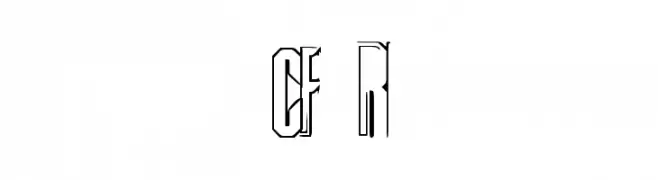
( House of Vegas )
A bold, abstract font with geometric shapes and a futuristic aesthetic.
( Just In Type - www.justintype.com.br/home_content.html )
A bold, comic-inspired font with rounded strokes and playful style.
( Just In Type - www.justintype.com.br/home_content.html )
A playful, comic-style font with bold, hand-drawn strokes.
( MichaelKoebnick )
A futuristic, geometric font with a digital and sci-fi aesthetic.
( Pixel Kitchen )
A futuristic, geometric font with a digital, tech-inspired design.
( Pixel Kitchen )
A futuristic, pixelated font with a digital and geometric design.
A bold, 3D italic font with a futuristic and dynamic design.
A bold, futuristic font with a 3D effect and geometric design.
A bold, geometric font with a futuristic and digital aesthetic.